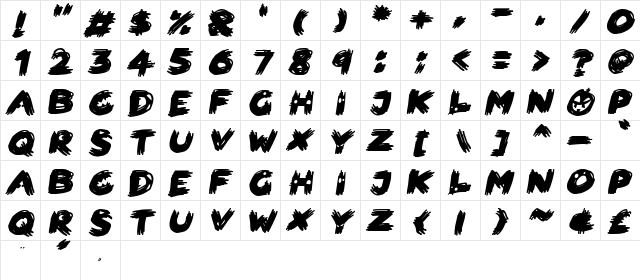
Scary HorrOrs Italic
Design Context for Scary HorrOrs Typeface
Scary HorrOrs carries an unsettling edge — its distorted letterforms are built to unsettle, perfectly suited to horror, Halloween, and dark creative work. The dynamic lean of this cut emphasises speed and emphasis in any layout.
Ideal for Halloween projects, horror film titles, haunted house signage, and dark editorial design.
Font Pairing: Pair with a clean neutral sans-serif for body copy to let Scary HorrOrs's character lead without overwhelming the composition.
Pro Tip: Scary HorrOrs works best as a headline or focal element. Pair it against plain, neutral body text to amplify the contrast.